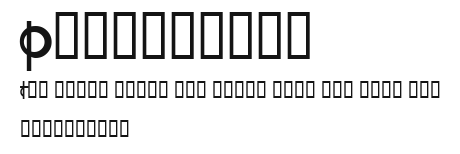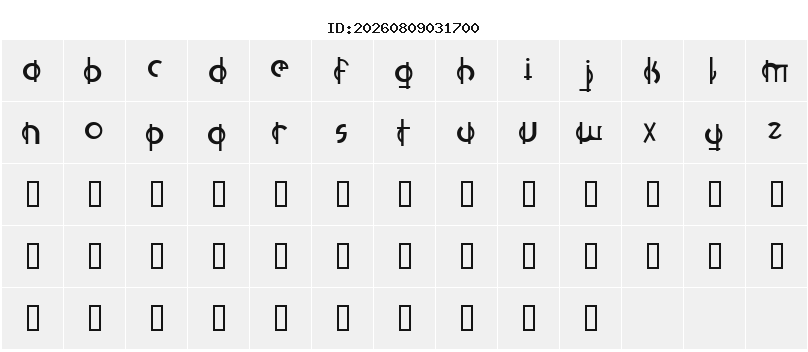
Pianissimo Preview
• Font Name: Pianissimo
About Pianissimo.ttf
Pianissimo.ttf is a modern, elegant sans-serif font designed for ultimate readability and visual harmony. Perfect for branding, headlines, web design, and print materials.